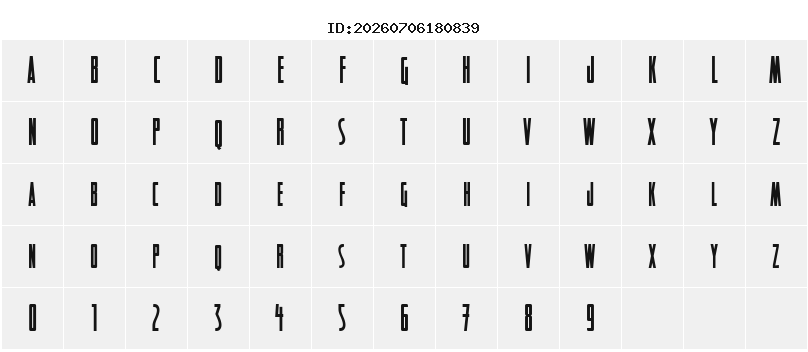
• Font Name: Detectives Inc
• Full Font Name: Detectives Inc
About Detectives Inc.ttf
Detectives Inc.ttf is a modern, elegant sans-serif font designed for ultimate readability and visual harmony. Perfect for branding, headlines, web design, and print materials.